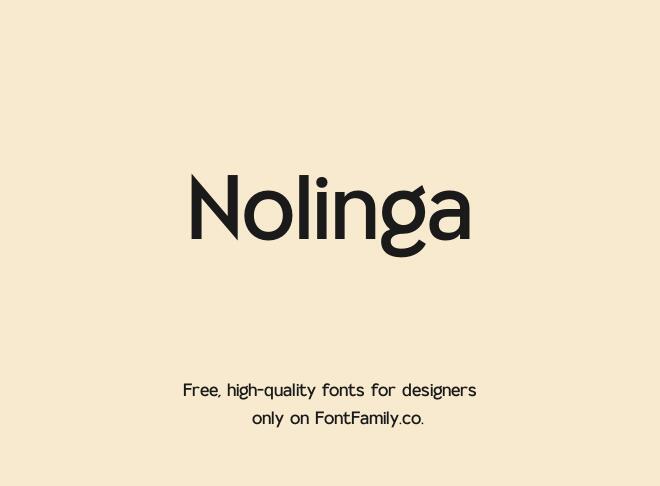
Nolinga Font
Nolinga Font is a modern and elegant sans serif typeface created by Nolinga Foundry. Its clean, sleek lines and minimalist design make it perfect for a wide range of applications, from corporate branding and advertising to web design and digital media. Nolinga Font stands out for its high readability, making it an excellent choice for both print and digital media. It's similar to popular fonts like Helvetica and Arial but brings a unique, contemporary twist to the table. Its broad range of weights and styles make it versatile enough to fit any design aesthetic. Whether you're designing a logo, crafting a headline, or creating a website, Nolinga Font is a great choice that will give your design a professional and sophisticated look.